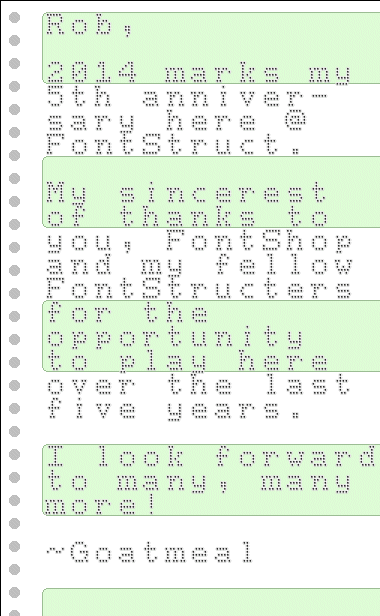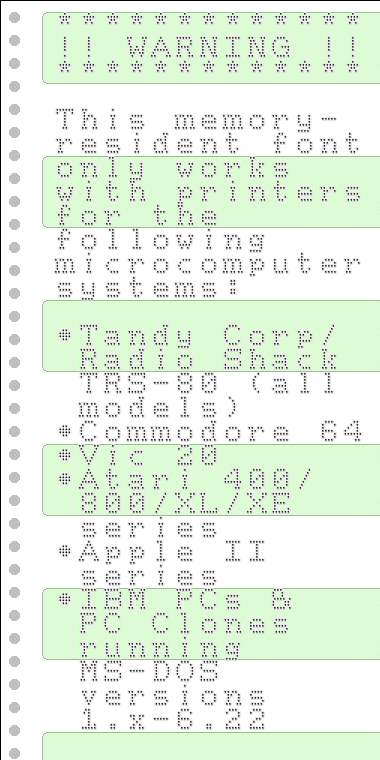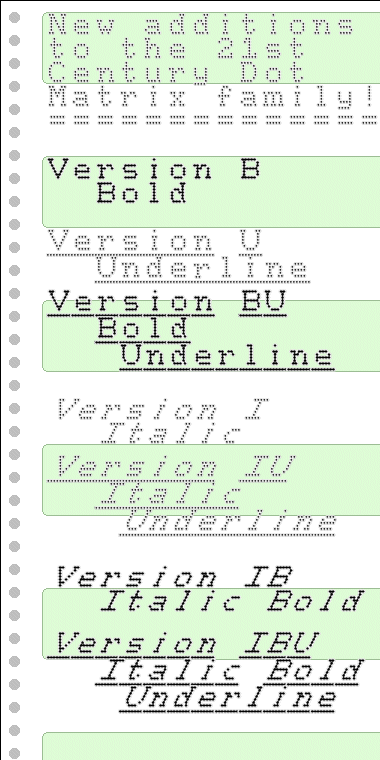
• An original dot matrix typeface designed for the new millennium! Warning - this memory-resident font only works with printers for the following microcomputer systems: Tandy Corp / Radio Shack TRS-80 (all models) ; Commodore 64 ; Vic 20 ; Atari 400/800/XL/XE series ; Apple II series ; and IBM PCs & PC Clones running MS-DOS versions 1.x-6.22
Welcome to 1982 - again.
Simple yet elegant. I like this mucho much.
Well done, GM! And the lovingly recreated roll-fed paper texture completes the package.
simple and good looking
I tried to make this one as legible as possible. Though it is a strange mixture of serifs, sans serifs and 'curves', it follows my "Dot Matrix Maxim":
1. There are only eight rows where dots may be placed on the 8x8 grid.
2. Dots may be placed in 1/2 positions horizontally, but not vertically.
And I had a lot of fun with the graphic; my uncle used to bring home reams of this type of paper in the late 70s/early 80s, and I would spend hours drawing upon it!
Lots of new family members for 21st Century Dot Matrix!
So creative. Nice looking and clean. Anything to add? Naw. One of the fonts to be built off of. Great. 10/10.
I hope people find the new 21st Century Dot Matrix family additions (combinations of bold, italic and underline) to be useful...